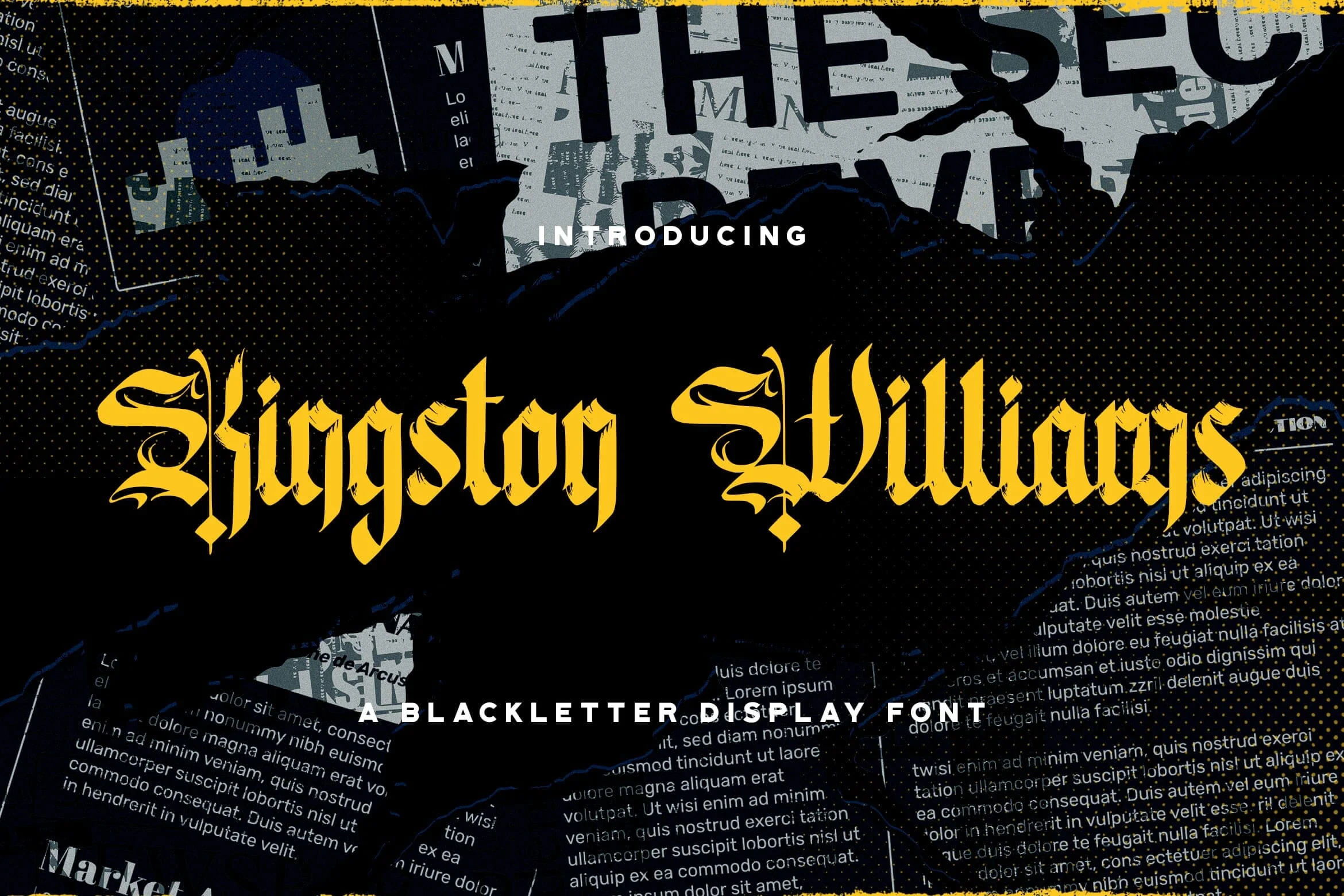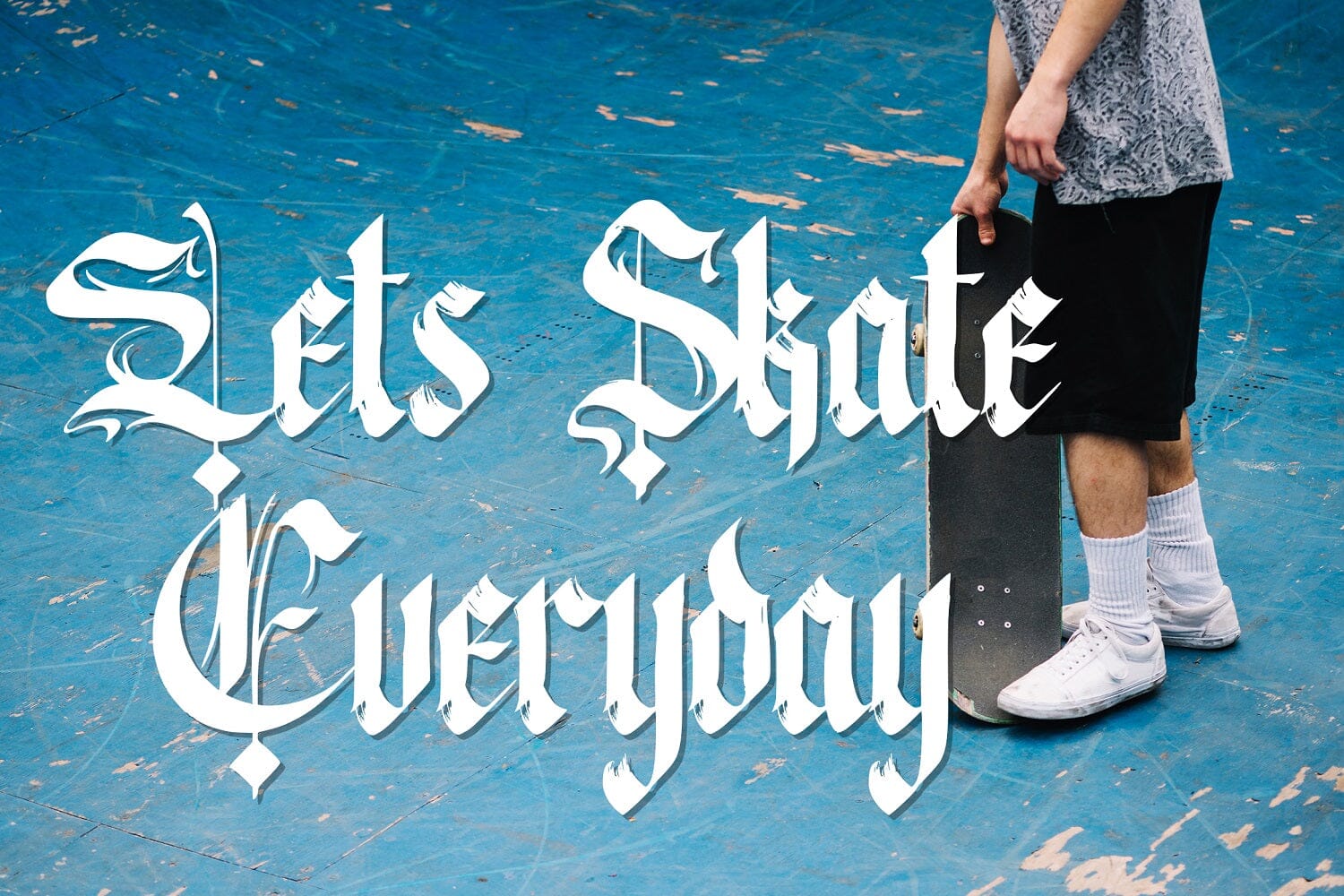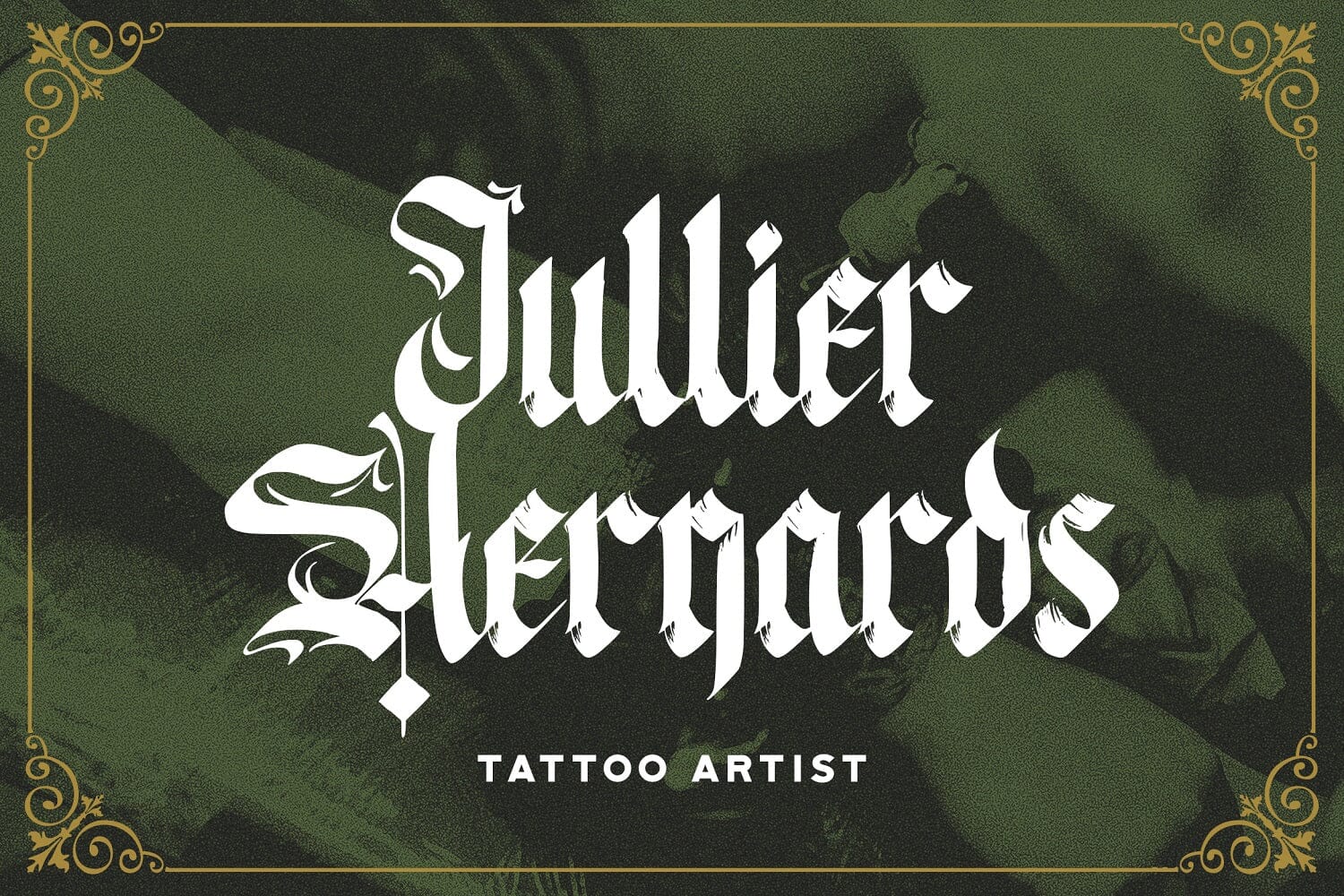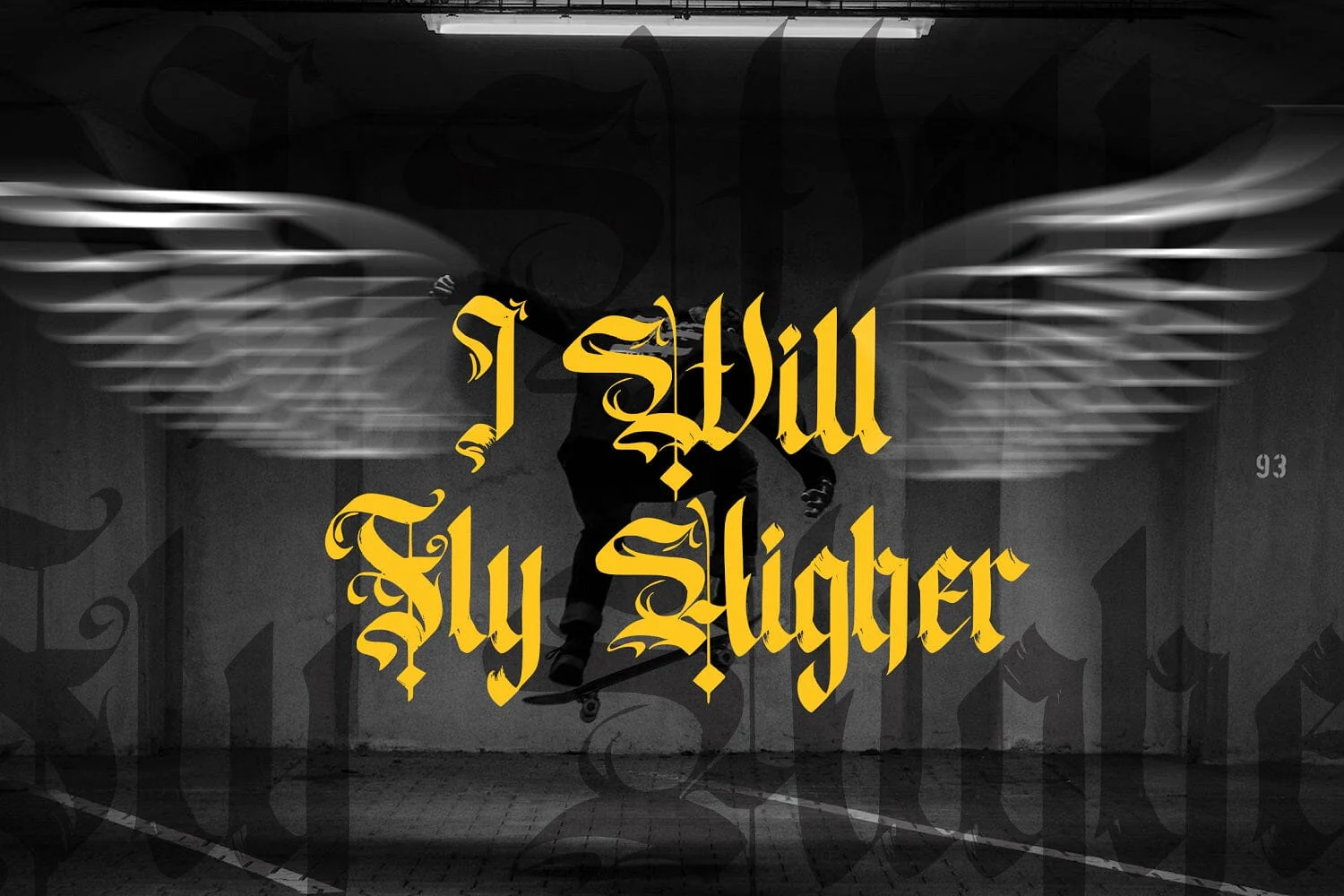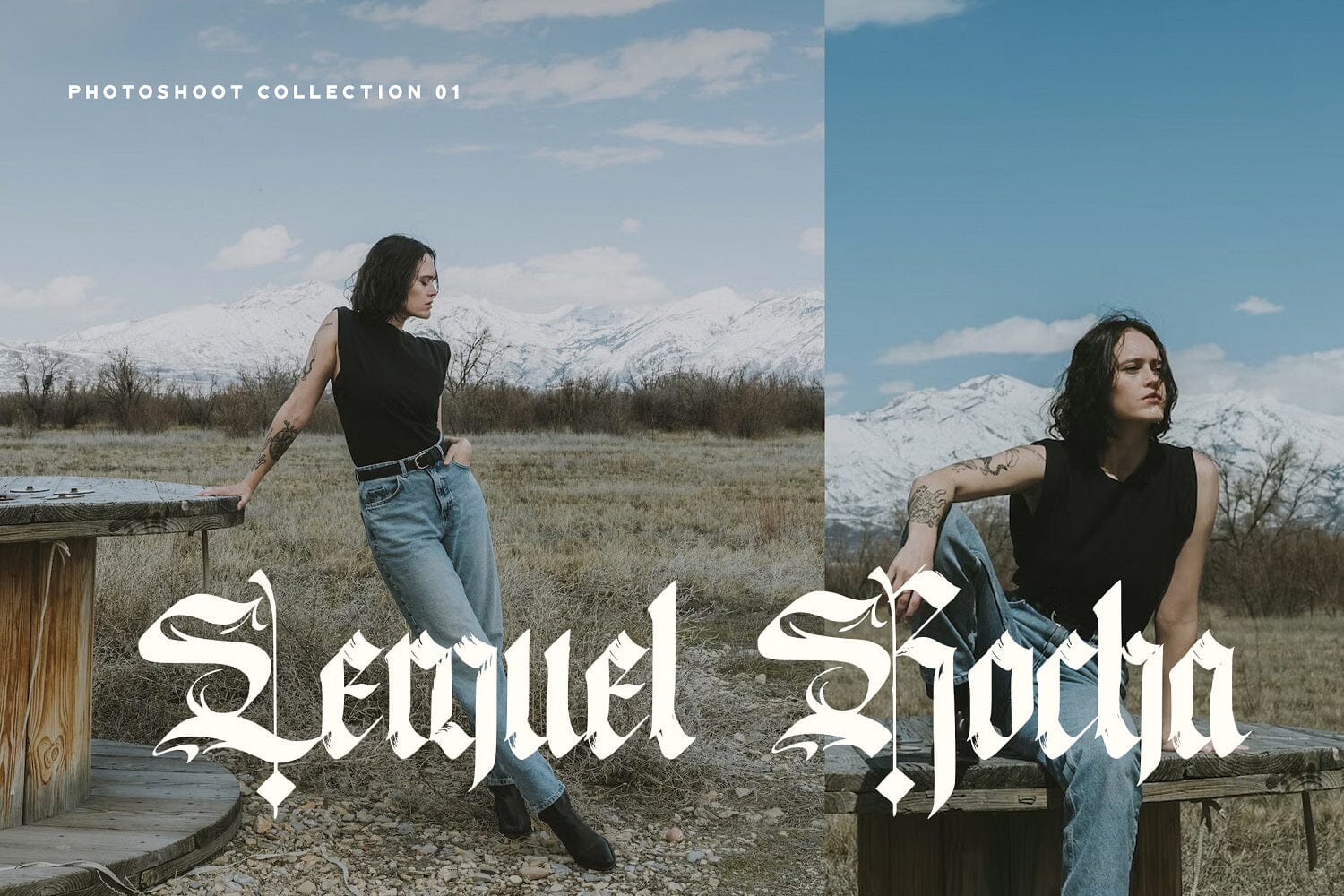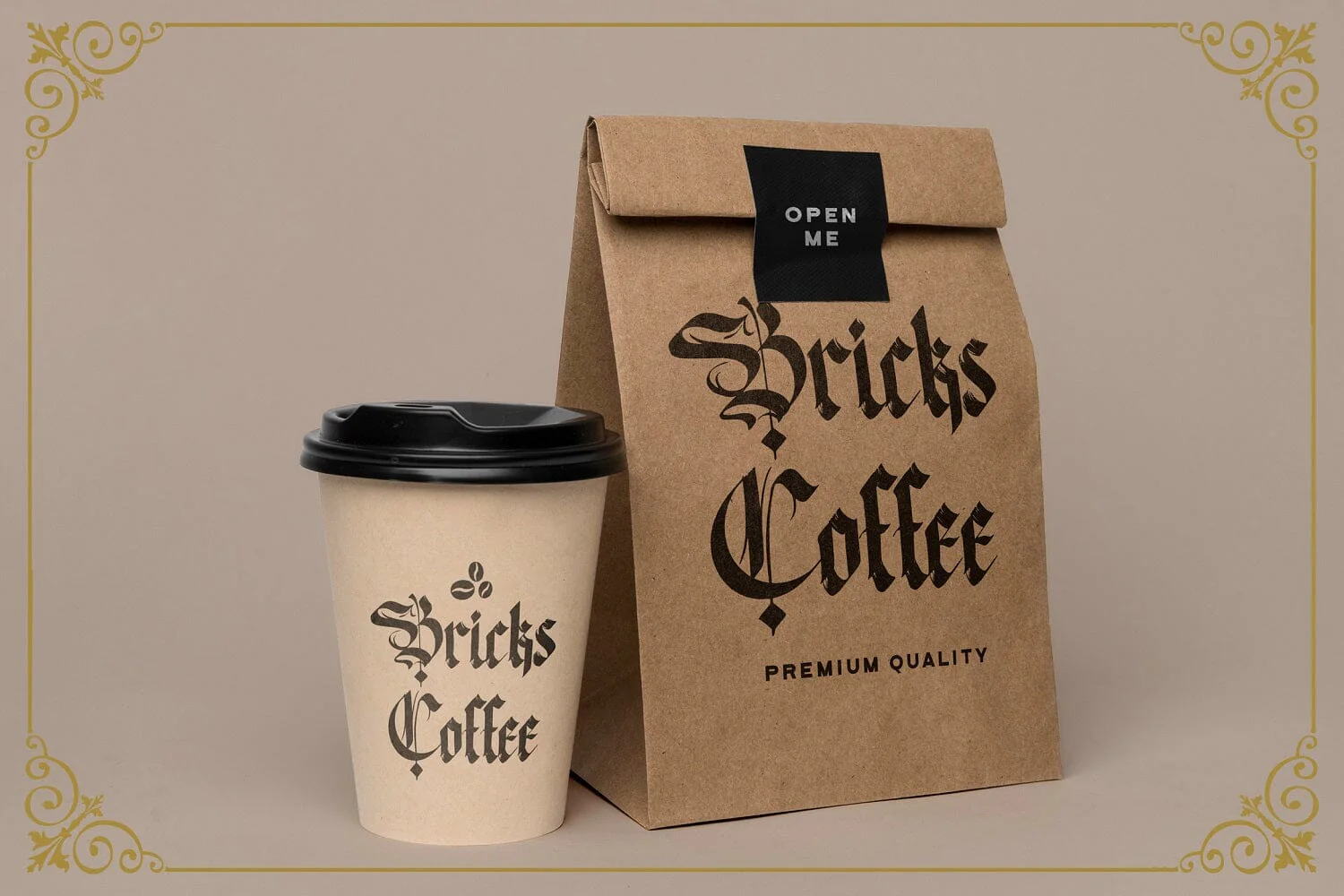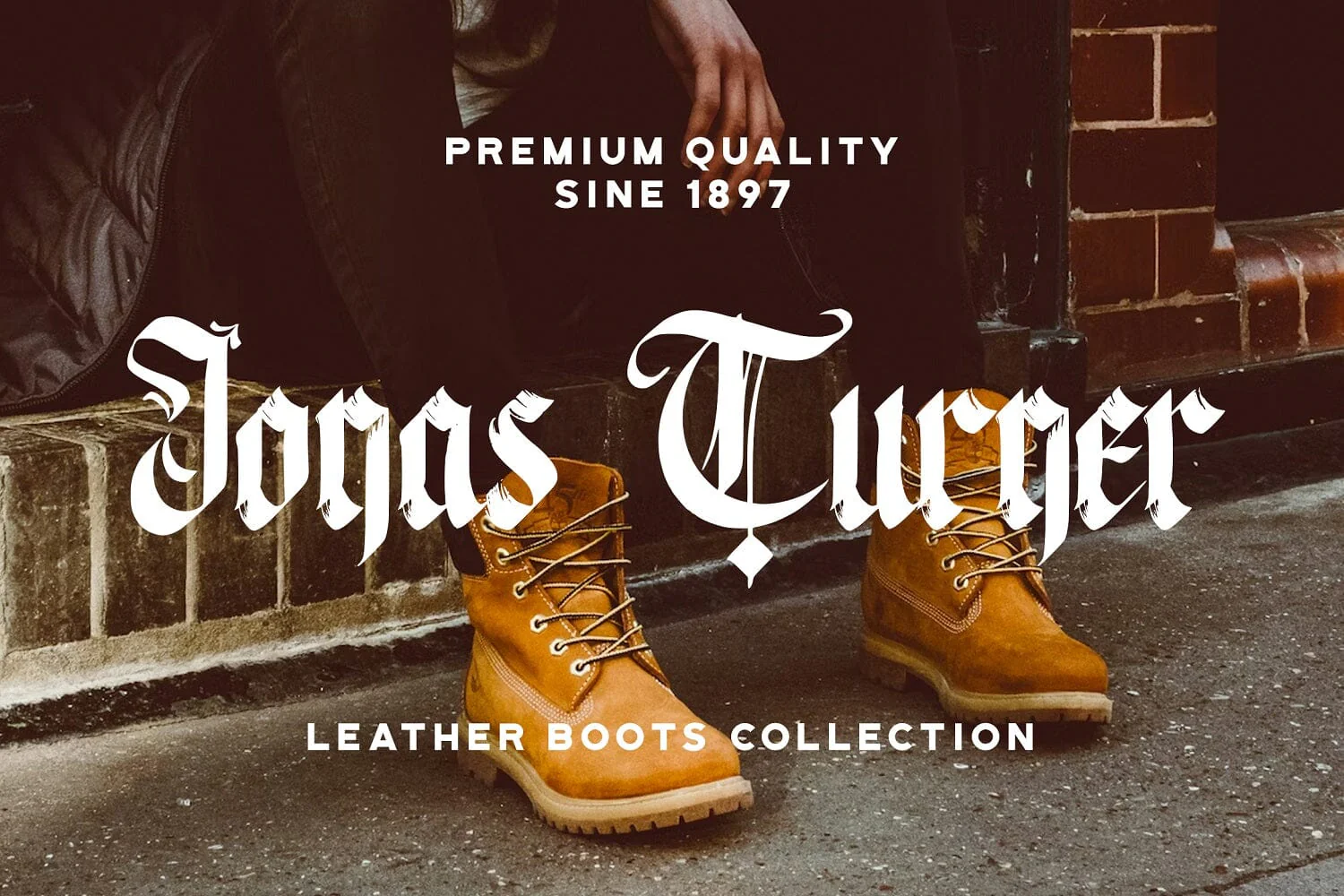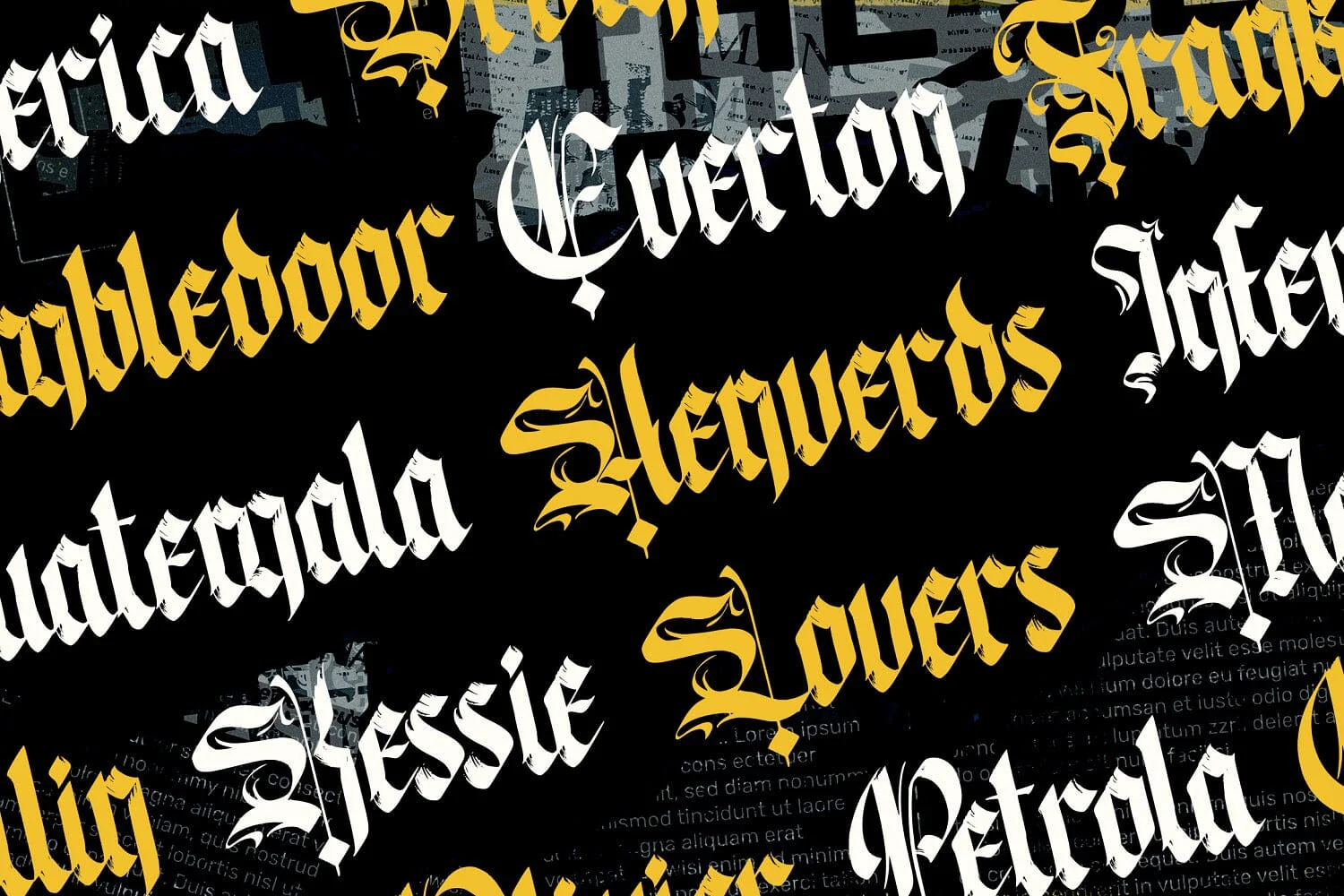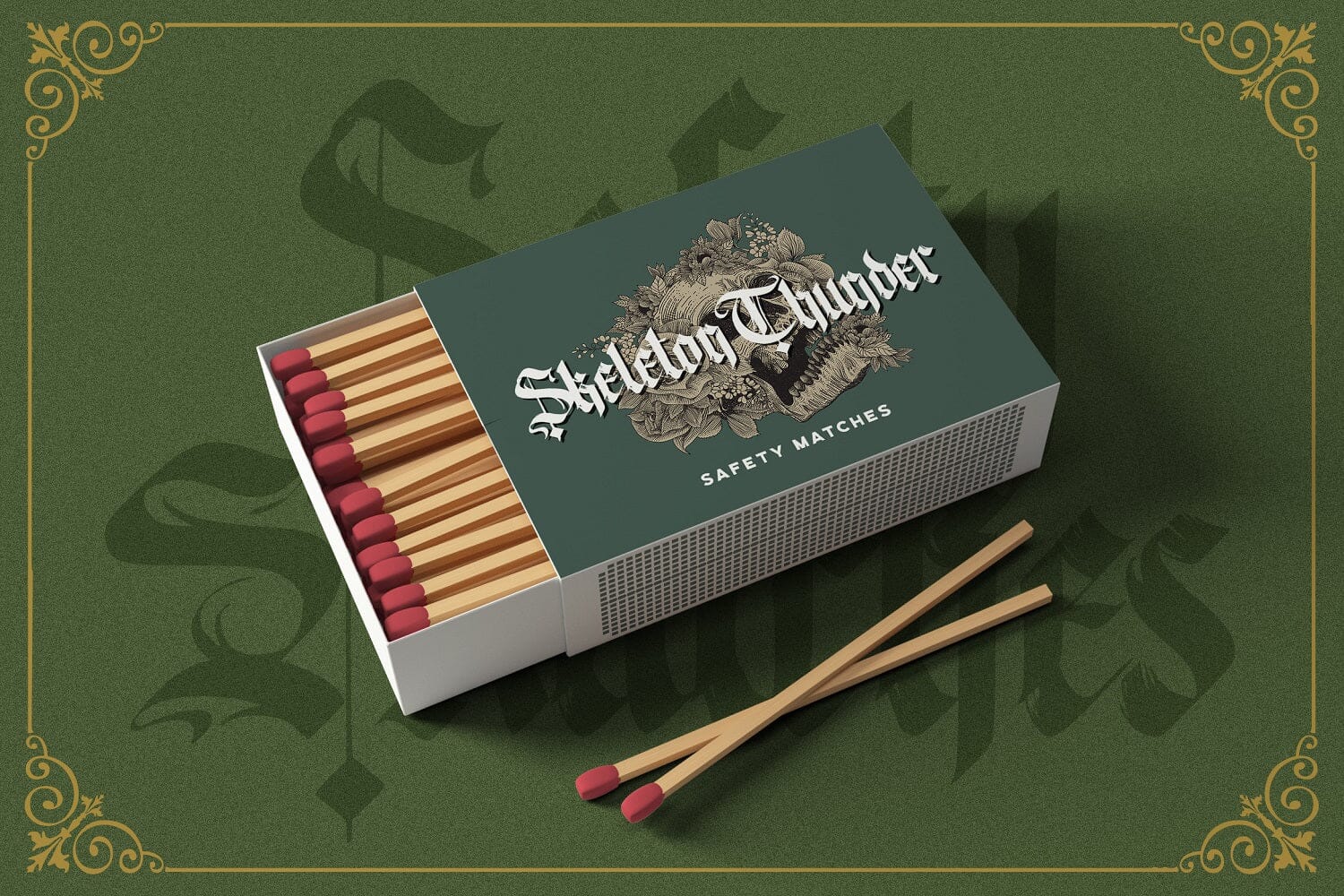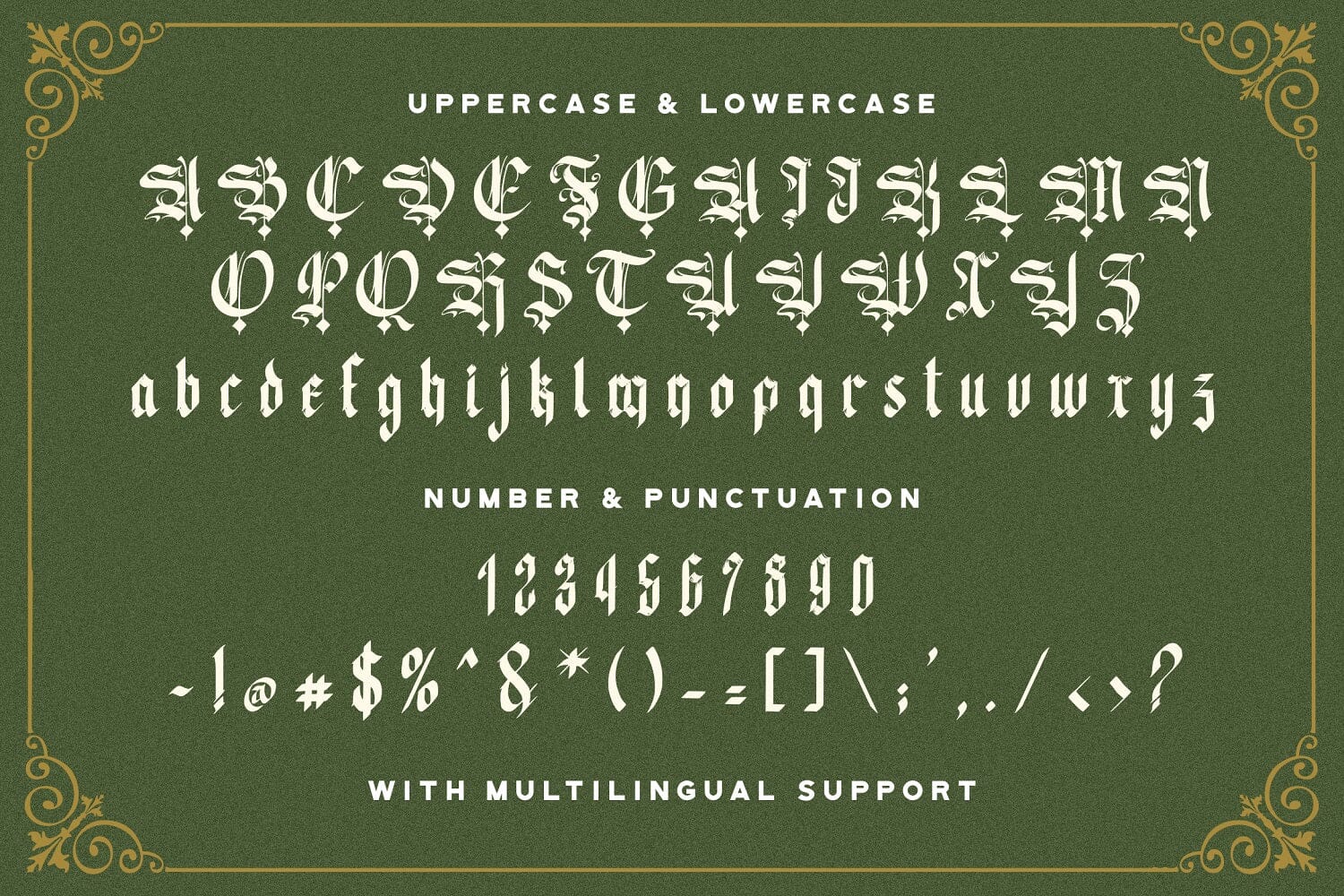
Kingston Williams - Blackletter Font
Introducing Kingston Williams - Blackletter Font
Kingston Williams is an incredibly authentic and daring blackletter font. Add this font to your favorite creative ideas and notice how it makes them stand out!
Introducing Kingston Williams - Blackletter Font
Kingston Williams is an incredibly authentic and daring blackletter font. Add this font to your favorite creative ideas and notice how it makes them stand out!